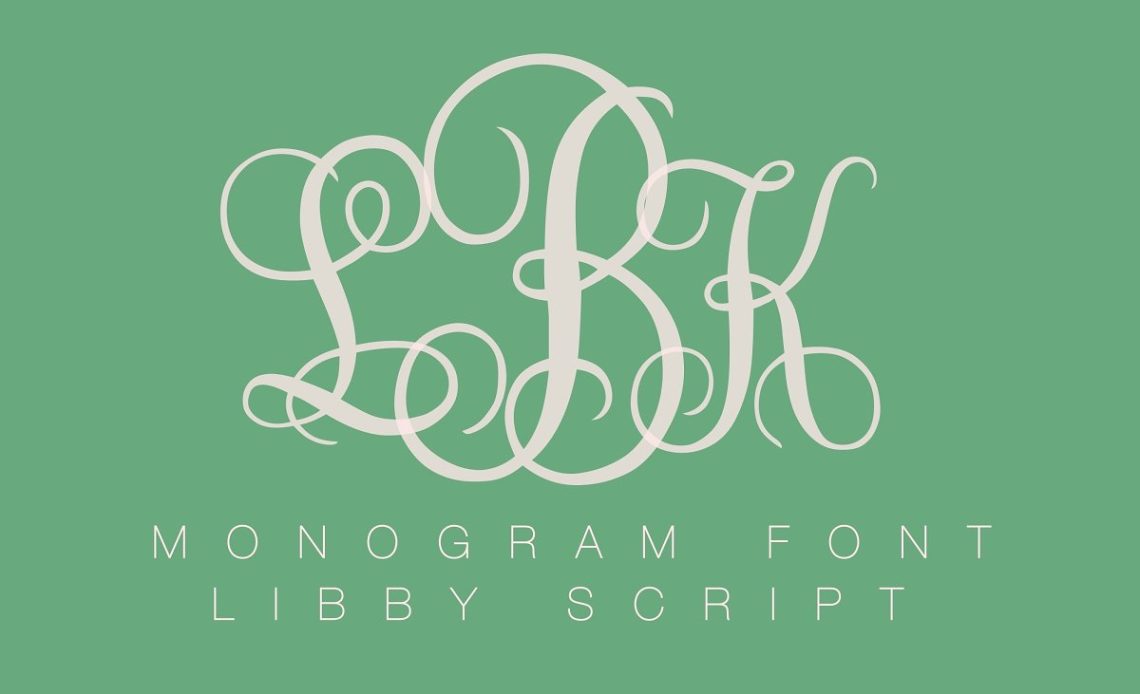
Looking for a font that adds a touch of elegance to your designs? Look no further than the Libby Script Typeface Font! Created by the talented Megan Bottomly, this font family features both Desktop OTF and TTF formats, as well as EOT and WOFF web fonts, making it the perfect choice for any project, whether it's for personal or professional use.
With its smooth curves and delicate lines, the Libby Script Typeface Font is the perfect choice for everything from wedding invitations to branding materials. Its sophisticated, yet approachable design is sure to capture the attention of anyone who sees it. And with its versatile use across both digital and print formats, this font is the ultimate tool for taking your designs to the next level.